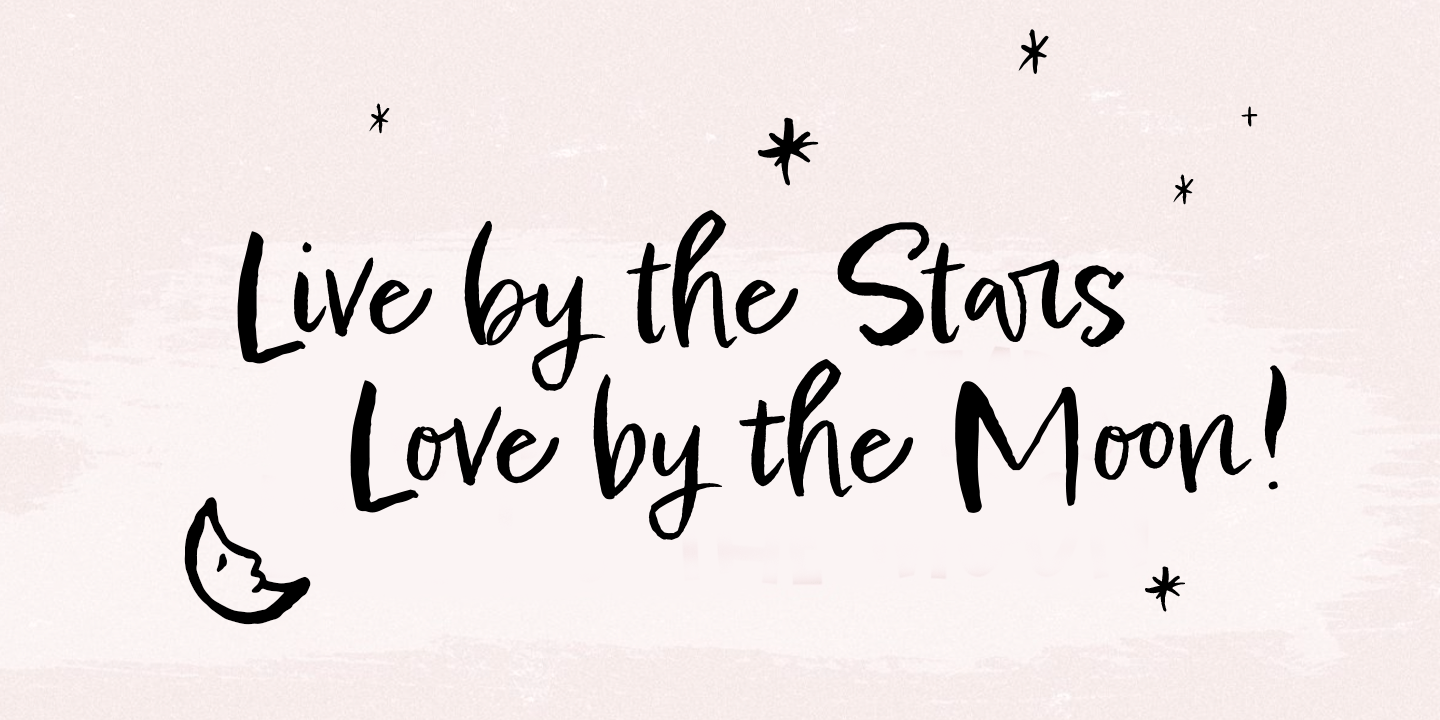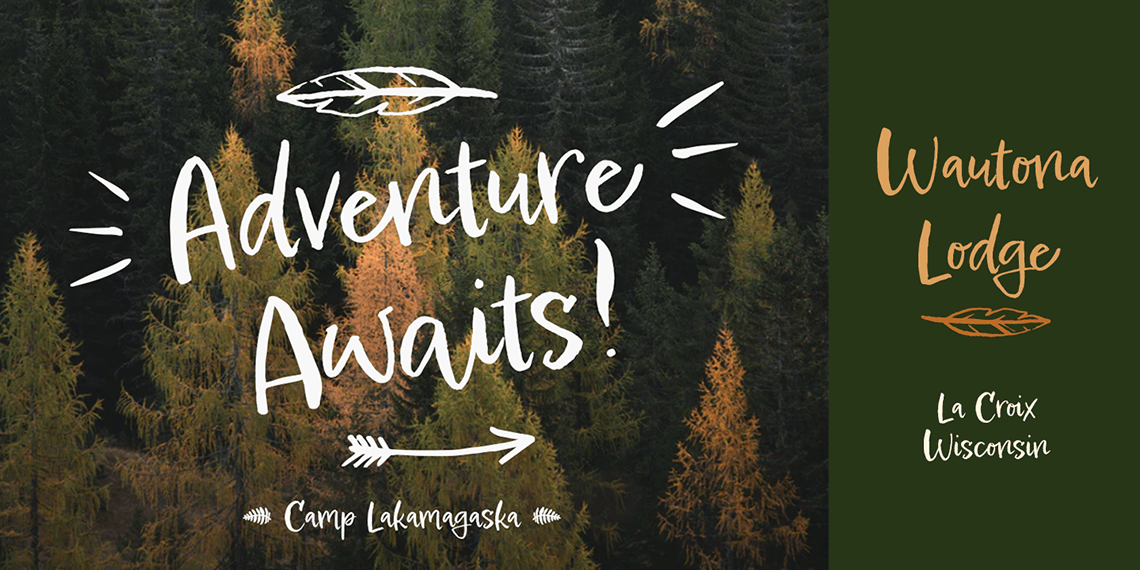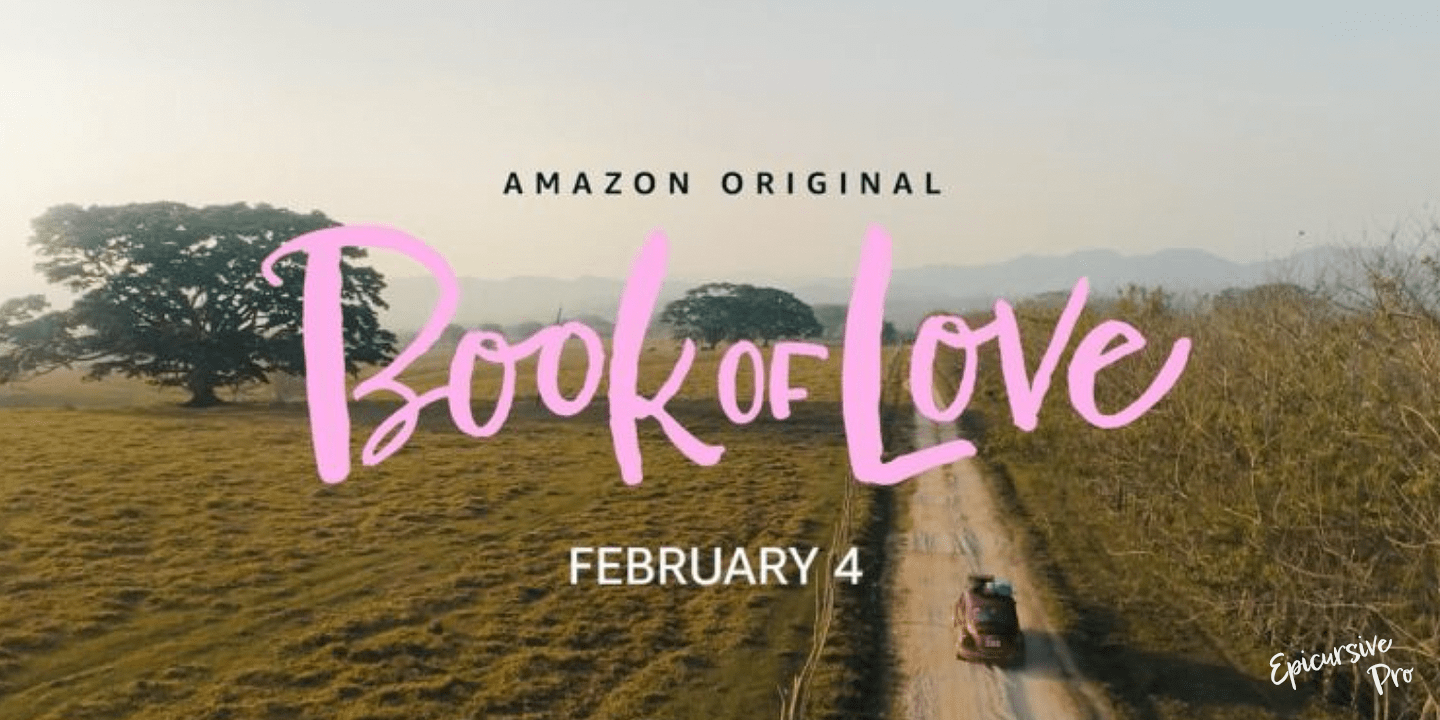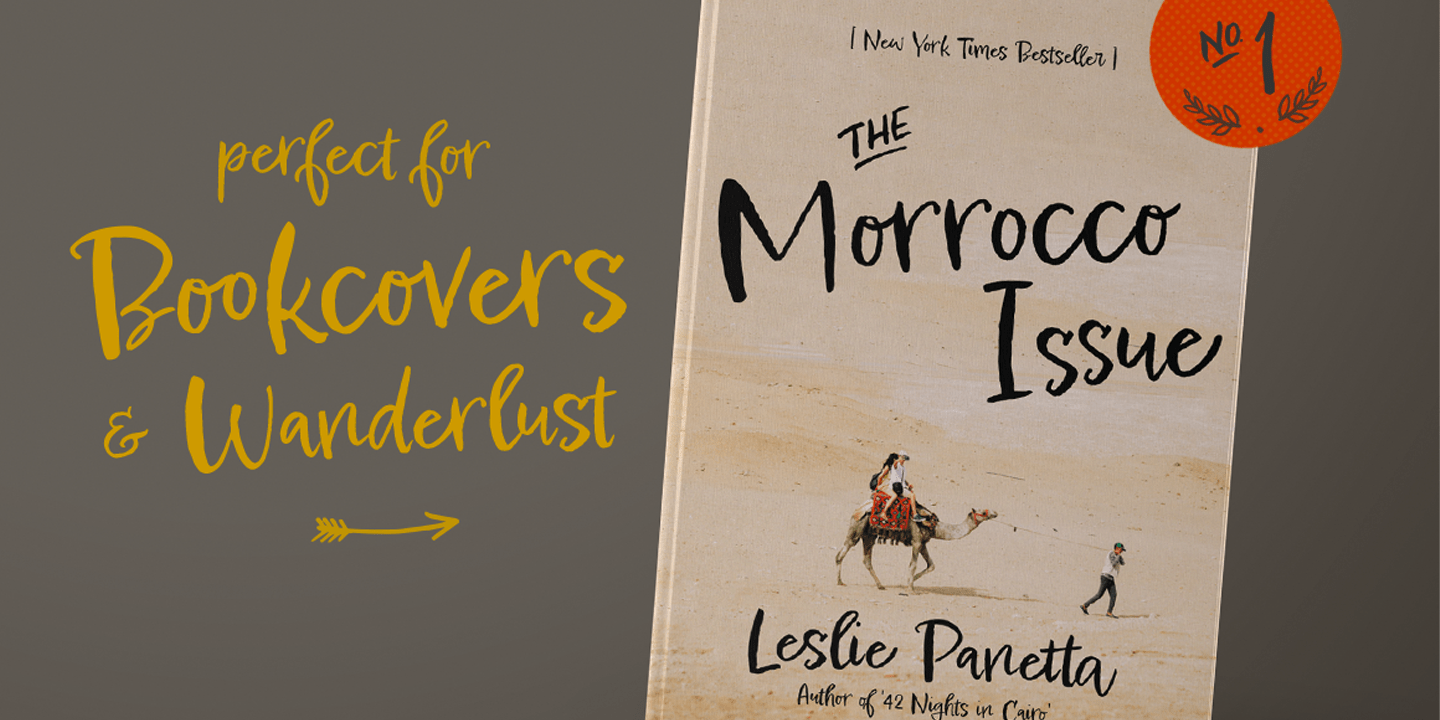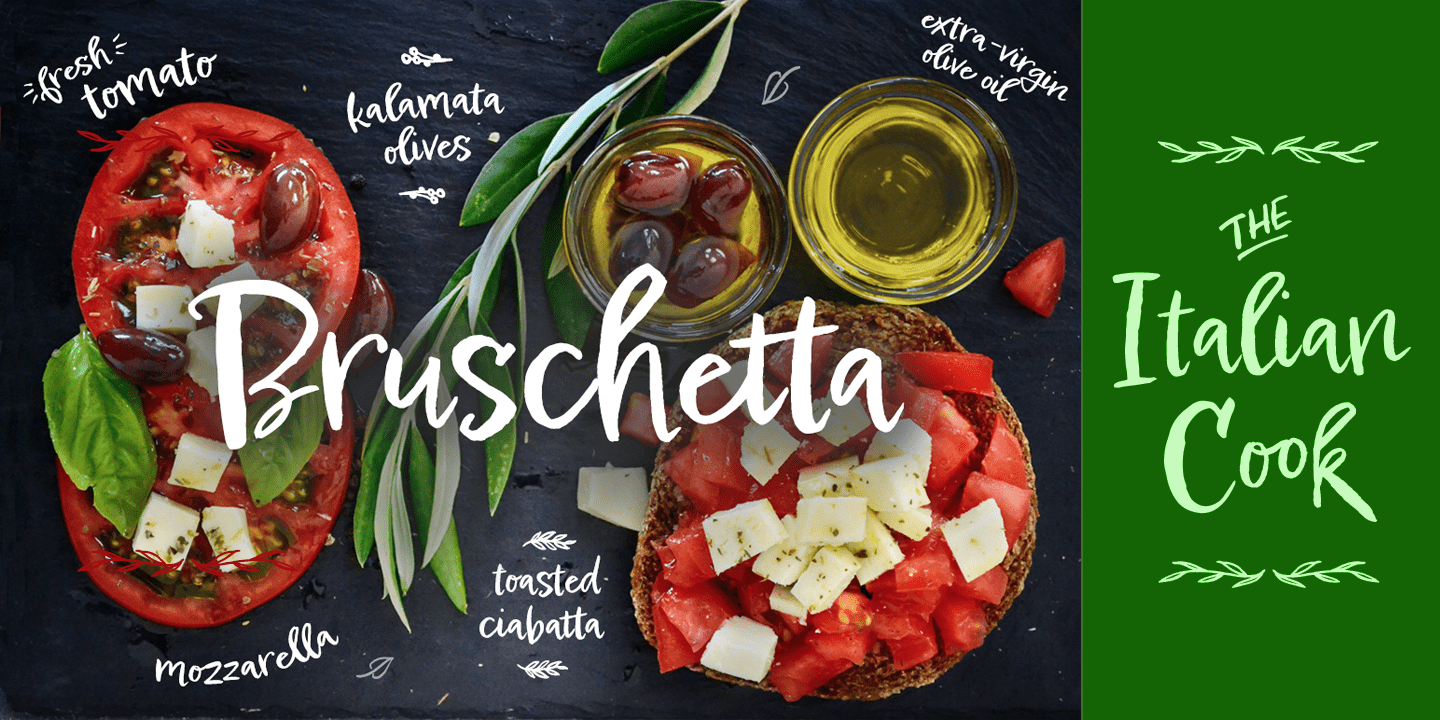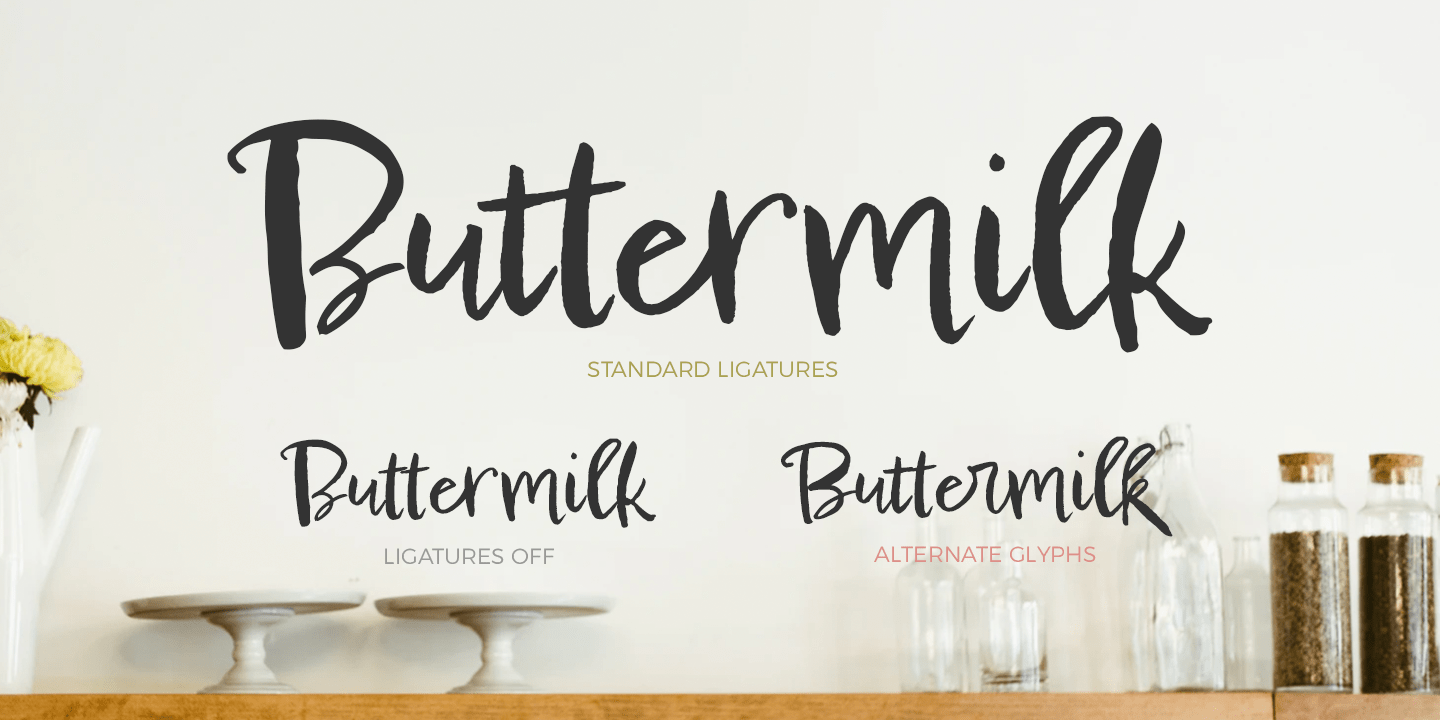
About Epicursive Pro
Epicursive Pro is handpainted with lots of personality and good vibes. This font comes with 2 sets of great dingbats to accentuate your words and embellish your logos. It looks marvelous over photos and is a charmer with illustrations. Perfect for Editorials,…